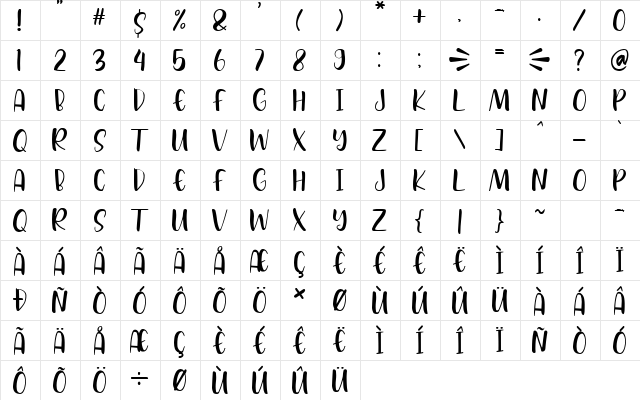
Green Viera Regular
Design Context for Green Viera Typeface
Green Viera is a composed and adaptable typeface that performs quietly and consistently across a wide range of design contexts.
Pro Tip: Use Green Viera in both headline and body roles to test its range before committing to a single application.